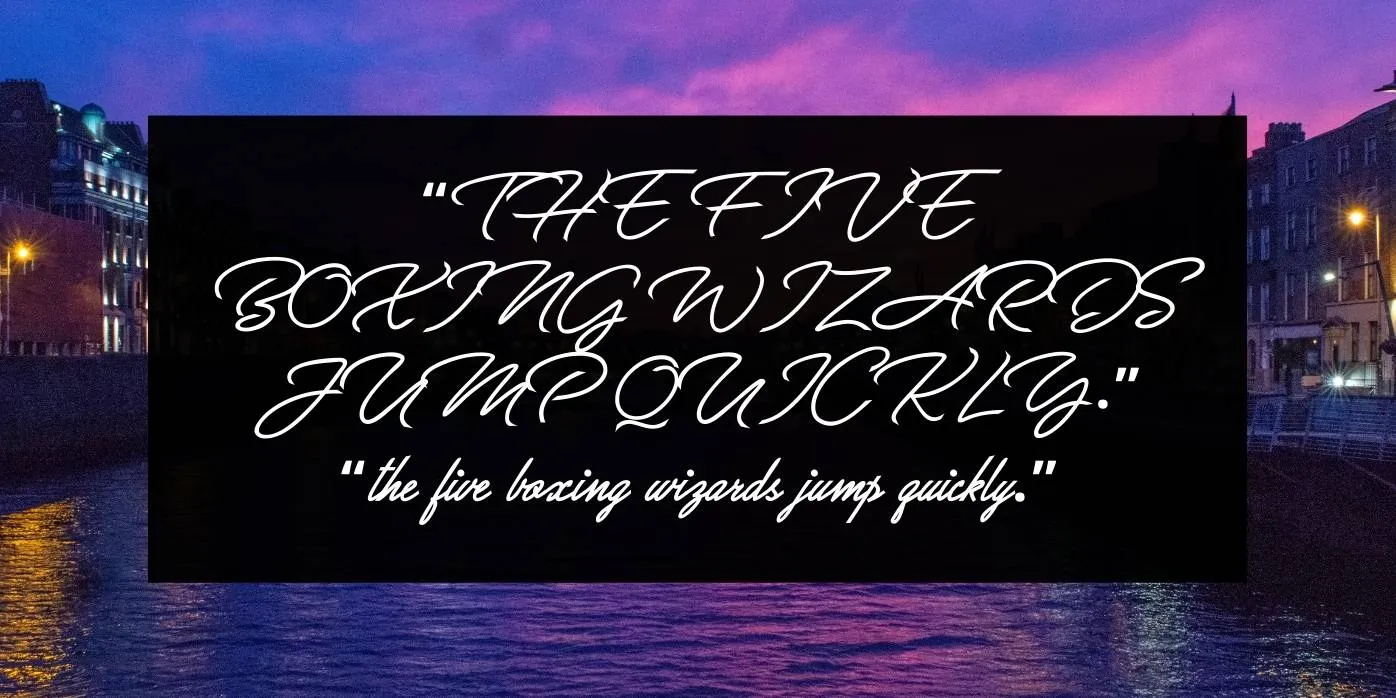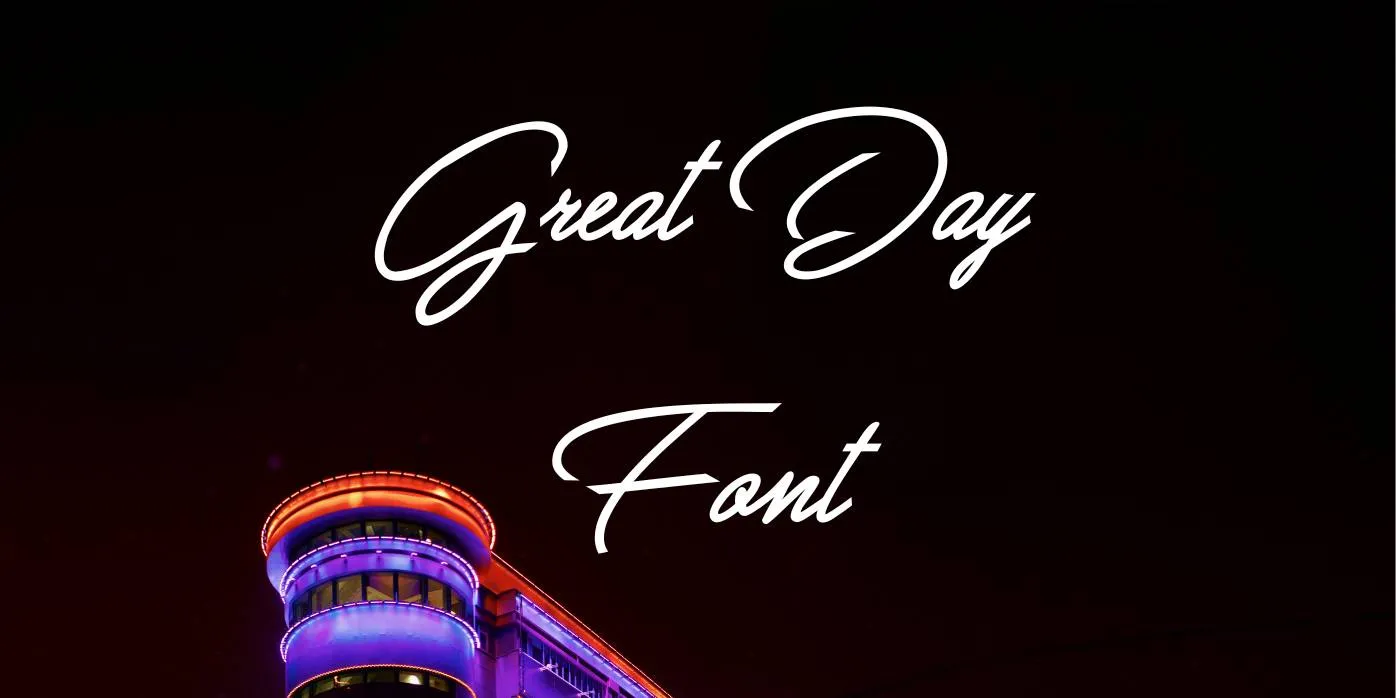
Great Day Font
You are going to read about the famous script type of font. Great Day Font is a script type of typeface. Letteratom is the designer of this texture. The characters of this typeface are amazing and stunning.
They are less readable but stylish. This typeface has a generator tool that will convert your text into the text of this typeface. The resultant text that you will receive is in various types of styles, sizes, shapes, and colors. This tool is not useful for large projects.